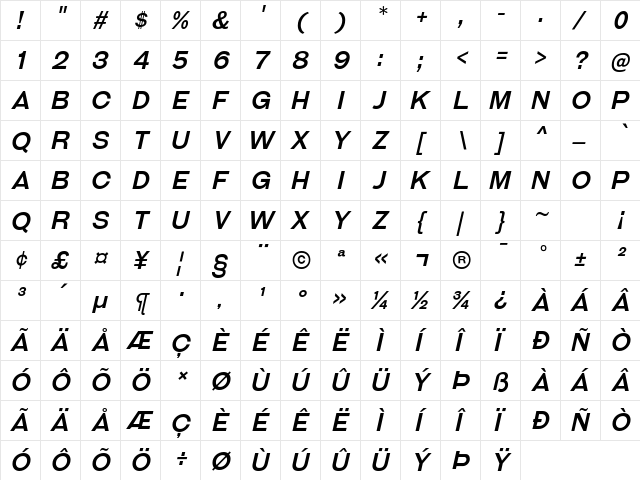
Galderglynn Titling Regular Italic
Design Context for Galderglynn Titling Typeface
Galderglynn Titling is a composed and adaptable typeface that performs quietly and consistently across a wide range of design contexts. Its italic angle brings a sense of urgency and motion to the letterforms.
Pro Tip: Use Galderglynn Titling for emphasis, pull quotes, and subheadings where its slanted energy can add rhythm to the layout.